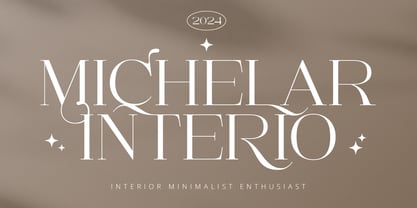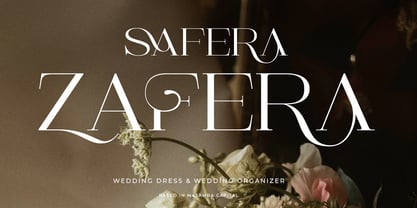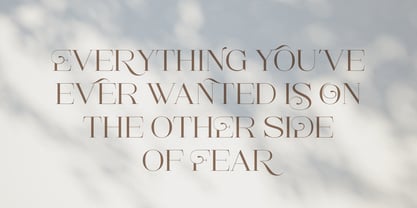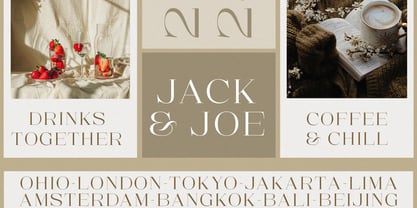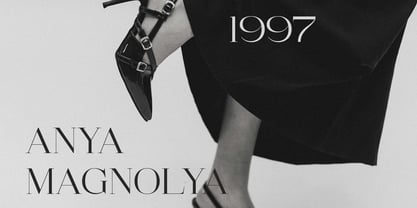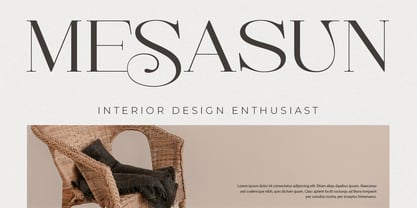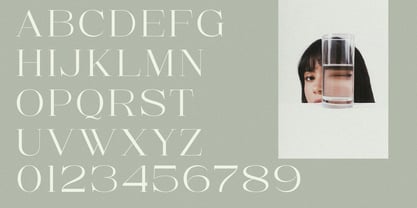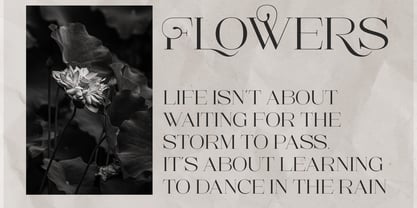
Sesandra All Caps Serif
by Spectype
The Sesandra All Caps Serif Font Family was designed by Fahmi Iman and published by Spectype. Sesandra All Caps Serif contains 1 styles. More about this family
SESANDRA is a modern and minimalist font featuring a clean, bold all-caps design. It includes ligatures, which merge letters aesthetically for a smoother and more engaging appearance, and offers a range of alternate characters for design flexibility and visual variety. This font is ideal for enhancing the professionalism and appeal of client projects, making it well-suited for logos, branding, and graphic design. SESANDRA is crafted to provide a contemporary and elegant look, with features that support unique and captivating design.
Designers: Fahmi Iman
Foundry: Spectype